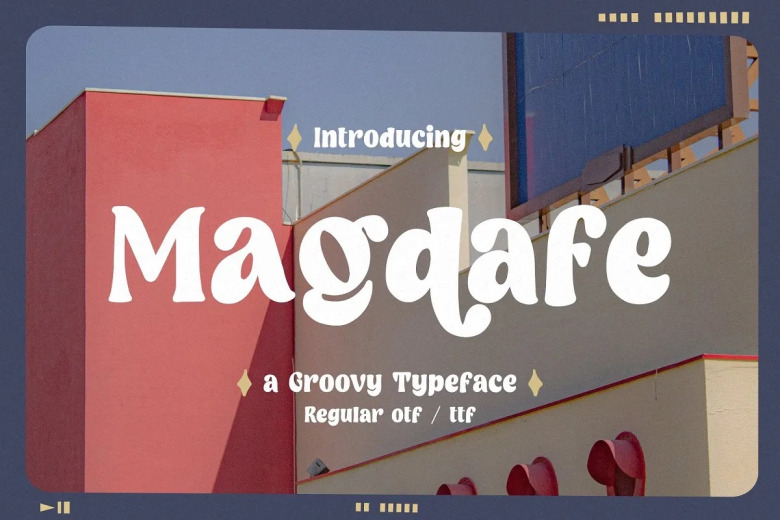
Magdafe Font
Magdafe is a groovy display font that brings with it some fun vibes. Magdafee is just being cheekily nostalgic at this point but good lord that was a groove. This gorgeous font is an amazing choice for every design that needs to remind its viewer of the good old days or a cherished moment. Perfect for branding projects, Logo design, Clothing Branding and product packaging, Magazine headers, or simply as a stylish text overlay to any background image.
Magdafe Display Font